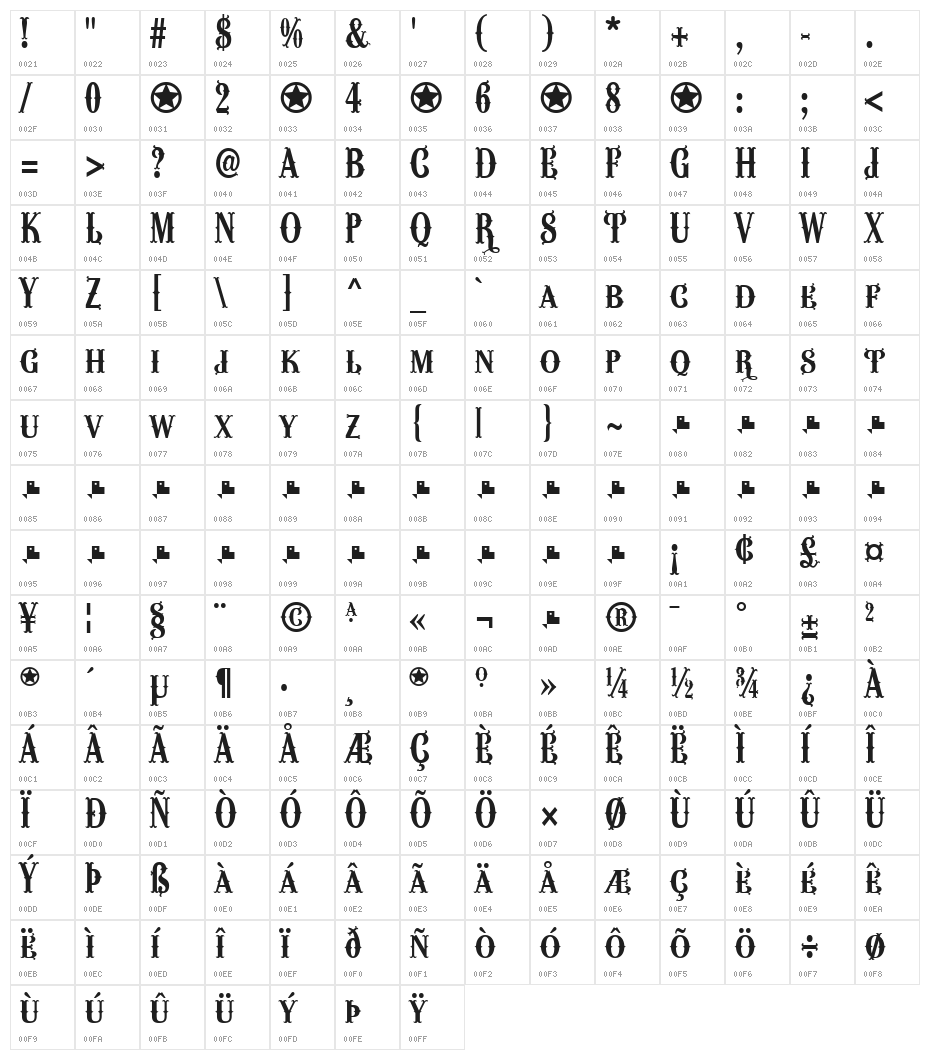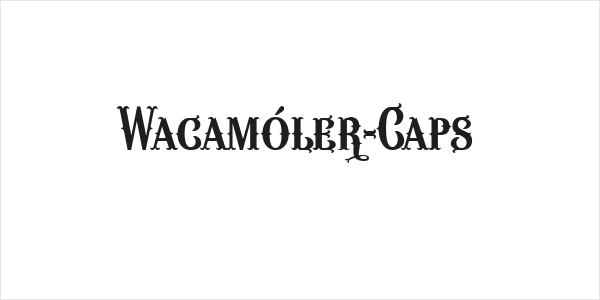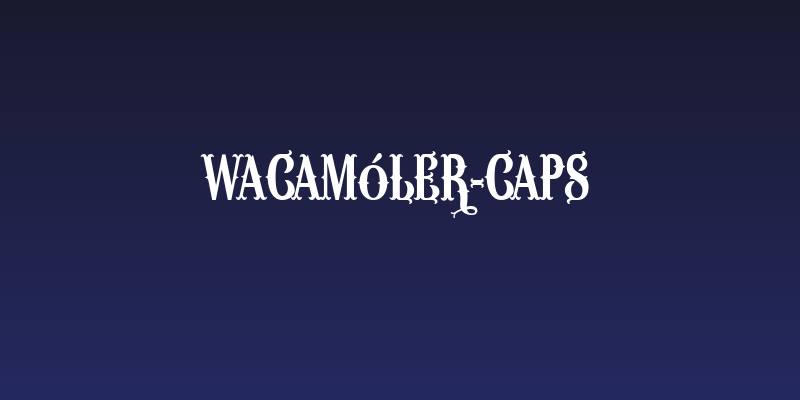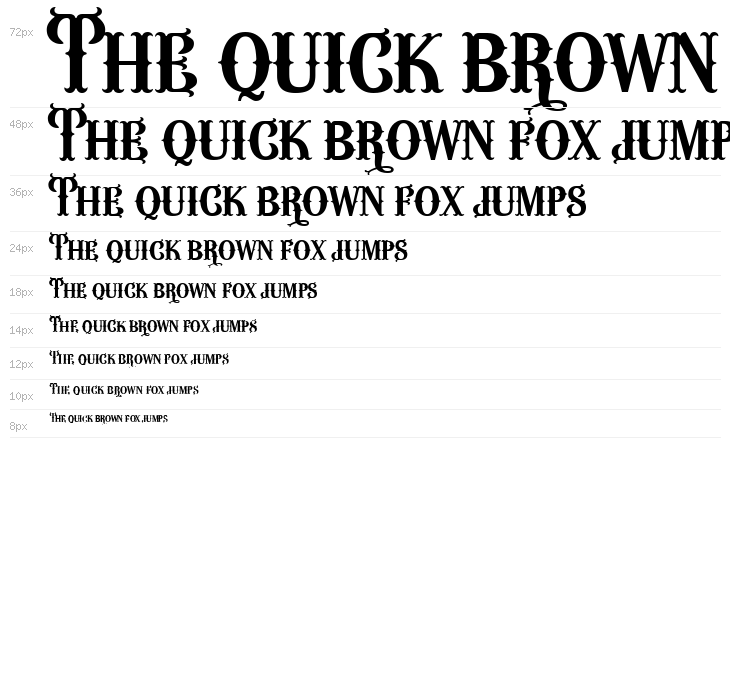
Wacamóler-Caps Font
Wacamóler-Caps Description
This font features a bold and decorative style with intricate details and flourishes on each character. The uppercase letters are designed with a strong presence, incorporating unique serifs and embellishments that give it a vintage, Western-inspired look. The numbers are equally stylized, with some characters featuring star motifs within circular frames, adding to the font's distinct personality. The special characters maintain the decorative theme, ensuring a cohesive appearance across all glyphs. This font is ideal for projects that require a bold and eye-catching typeface with a touch of nostalgia and flair.
| Proposed Projects | Ideal for posters, branding, signage, and any design needing a bold, vintage flair. |